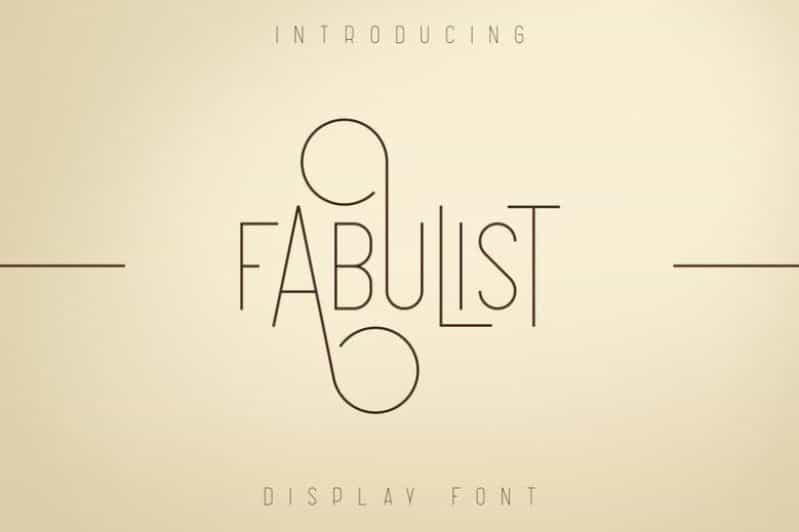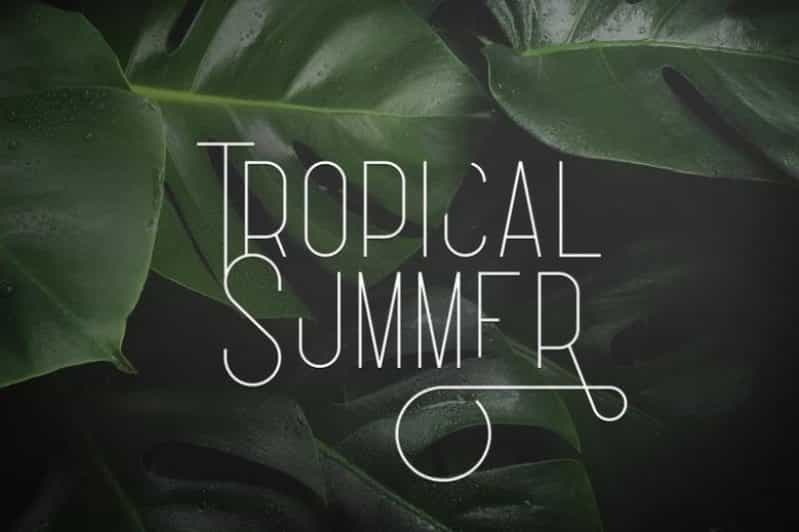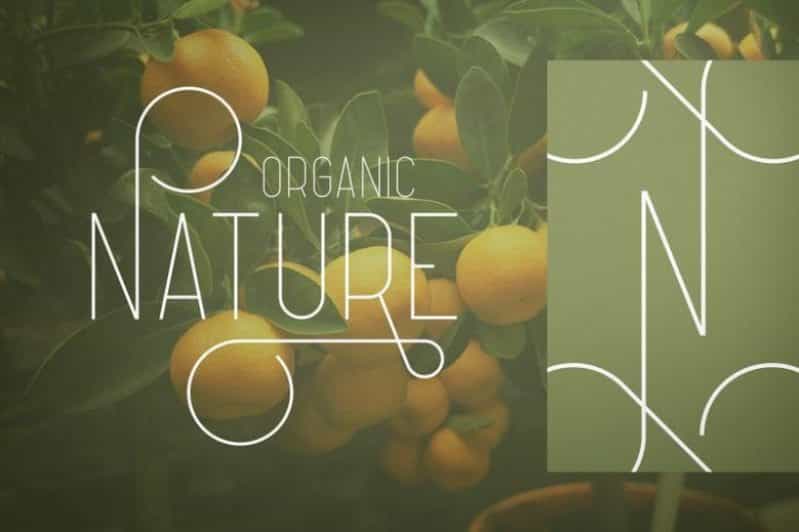
Fabulist is the clean and minimal font that has included a number of the alternative glyphs, ligatures and multilingual options. It is a very democratic font which is very legible both in large and small sizes. Fabulist is ideal for branding and logo design, home and living products, packaging, and headers for magazines, or as text over background images.